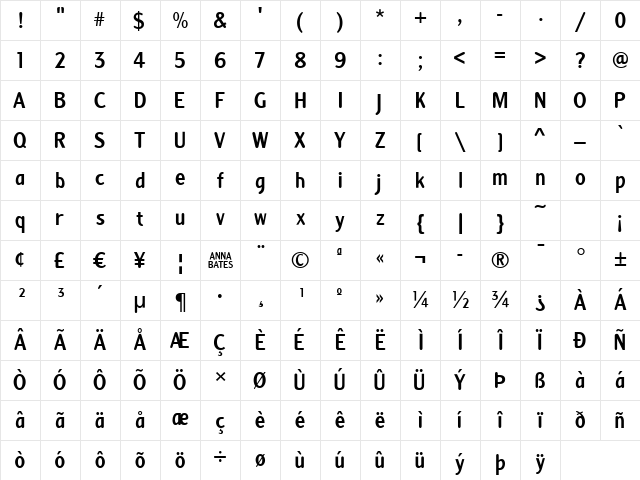
Anna Regular Free Font
Anna Regular
Design Context for Anna
Anna is a composed and adaptable typeface that performs quietly and consistently across a wide range of design contexts.
Pro Tip: Use Anna in both headline and body roles to test its range before committing to a single application.